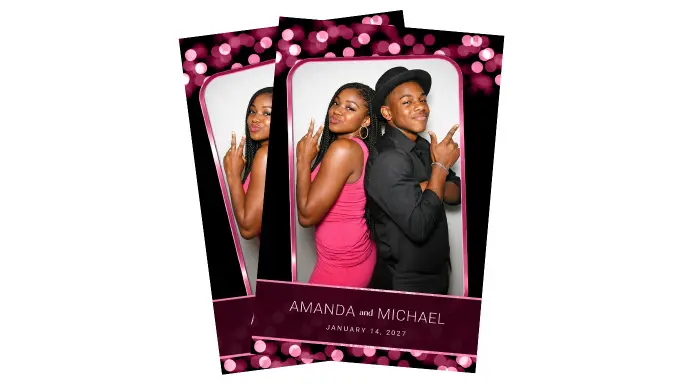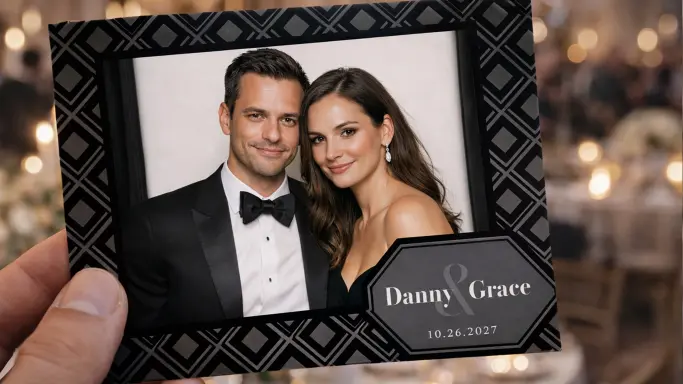
Best Fonts for Wedding Photo Booth Strips and overlays.
The typography you choose can make or break a design, which is why finding the best fonts for wedding photo booth strips is absolutely essential for your asset library.
Choosing the Best Typography for Photo Booth Overlays.
Moving beyond traditional physical prints, digital setups like 360 spinners and iPad booths require equally stunning visual branding. Discovering the best typography for photo booth overlays ensures that your animated start screens, tap-to-start buttons, and digital borders look cohesive and professional. A well-chosen font on a digital overlay not only enhances the guest experience but also reinforces your brand’s reputation for delivering top-tier, polished visual assets.
The Best Script Fonts for weddings.
Script fonts are typefaces designed to mimic the fluid, varied, and continuous strokes of human handwriting or calligraphy. They cover a wide spectrum of styles—ranging from highly formal, elegant lettering with sweeping swashes and flourishes (think traditional wedding invitations) to casual, textured brush strokes that look like they were painted by hand.
When to use a Script font for Photo Booth Overlays?
They are perfect for highlighting the focal point of a template. Using a beautiful script for the names of a bride and groom immediately establishes the hierarchy of the design and draws the eye.
The Enchanting Elegance Font is perfect for infusing a touch of magic. Its delicate lines and graceful curves effortlessly capture the essence of romance. Script Fonts for weddings.
The Blu River Font is an exquisite typeface effortlessly captures the essence of calm waters, blending serenity with sophisticated typography. Script Fonts for weddings.
The Alex Brush Font a font that effortlessly weaves together elegance and grace. Inspired by the flowing strokes of traditional brush calligraphy. Script Fonts for weddings.
The Amalfi Coast Font is Crafted with meticulous attention to detail. With each letter, envision the winding streets of Positano and the gentle breeze of the Tyrrhenian Sea. Script Fonts for weddings.
This Wedding script font captures the essence of classic elegance, providing a perfect blend of sophistication and romantic allure for your wedding stationery. Script Fonts for weddings.
This Al Fresco script font was Inspired by the open-air charm of al fresco dining, this font encapsulates the breezy elegance of outdoor settings. Script Fonts for weddings.
The Best Serif Fonts for weddings.
Serif fonts are typefaces that feature small, decorative strokes or “feet” at the ends of the letters’ main vertical and horizontal lines. Some classic examples include Times New Roman, Garamond, and Playfair Display. Here are some free serif fonts for weddings:
When to use a Serif font for Photo Booth Overlays?
If an event has a black-tie, vintage, or highly traditional aesthetic, serif fonts are a perfect fit. They bring a level of sophistication that feels expensive and established. Avoid using two different serif fonts in the same template. They will visually clash and make the layout look like a mistake rather than a deliberate design choice.
The Cinzel Font It is characterized by its elegant and classical design, drawing inspiration from classical Roman letterforms. Best Serif Fonts for weddings.
Glitten is a modern, elegant and classy serif typeface. Glitten come with clean lines and smooth curves. Best Serif Fonts for weddings.
Nomark is a elegant and classy serif typeface – This font is both modern and nostalgic. Best Serif Fonts for weddings.
Garamond is a classic and elegant typeface that has been widely used for centuries. Best Serif Fonts for weddings.
Larken is a confident serif. Designed to reflect nature, it creates a sense of natural softness
The font is primarily designed for uppercase letters, making it well-suited for titles and headings
The Best San Serif Fonts for weddings.
They are characterized by clean, straight lines and typically have a uniform stroke width throughout the letterform. Well-known examples include Helvetica, Montserrat, Futura, and Arial. Here is our picks for the best san serif fonts for weddings:
When to use a Serif font for Photo Booth Overlays?
This is the golden rule of typography pairings. When you use an elaborate script font for the bride and groom’s names, you should almost always use a clean, all-caps sans-serif font for the date and venue underneath. Downside…It lacks the romance and elegance expected at highly traditional events.
Glamour is a sans serif font with luxury, elegant, modern, unique and classy-look. Best San Serif Fonts for weddings.
A wonderful geometric, versatile typeface that works well in both body and display texts. Best San Serif Fonts for weddings.
One of the default fonts for many Google products, a modern and geometric design. Best San Serif Fonts for weddings.
A new grotesque sans serif typeface designed with a unique balance and large counters.
Archivo Black is a bold and eye-catching typeface and as the name suggests, a bold variant
Bebas Neue is a popular sans-serif typeface that is characterized by its bold and distinctive design